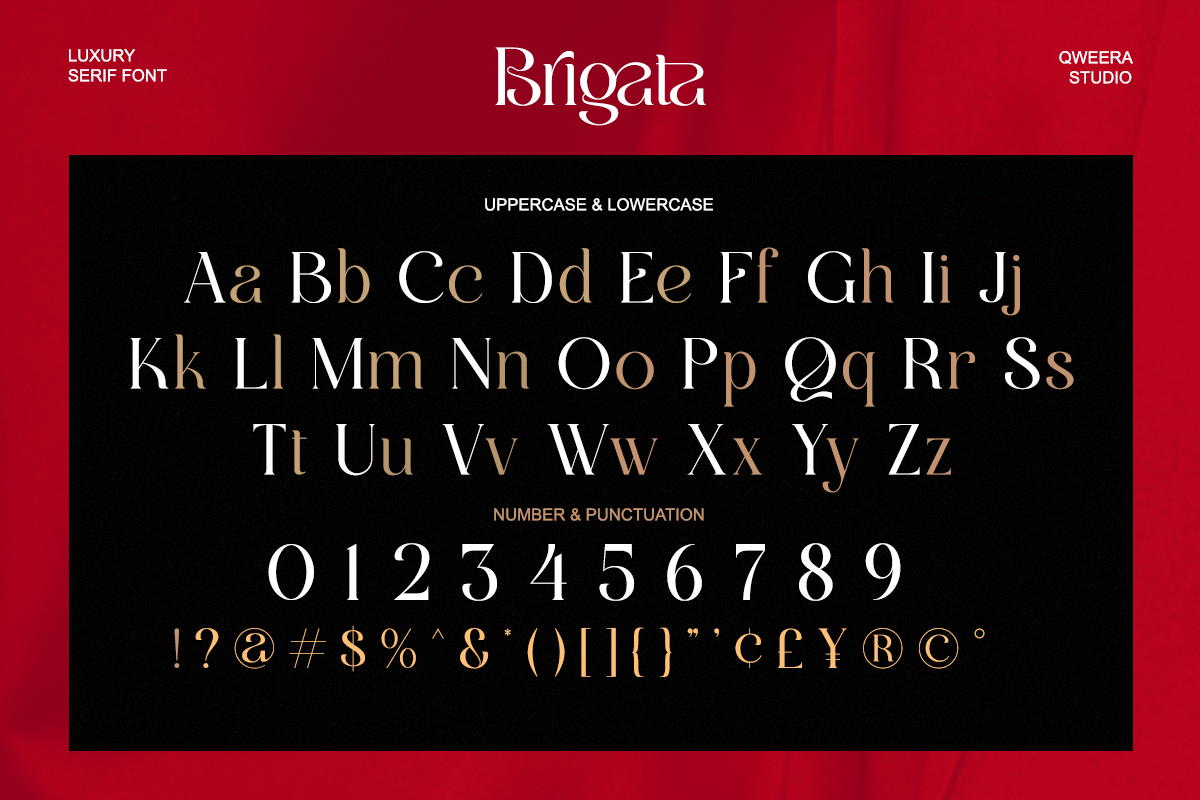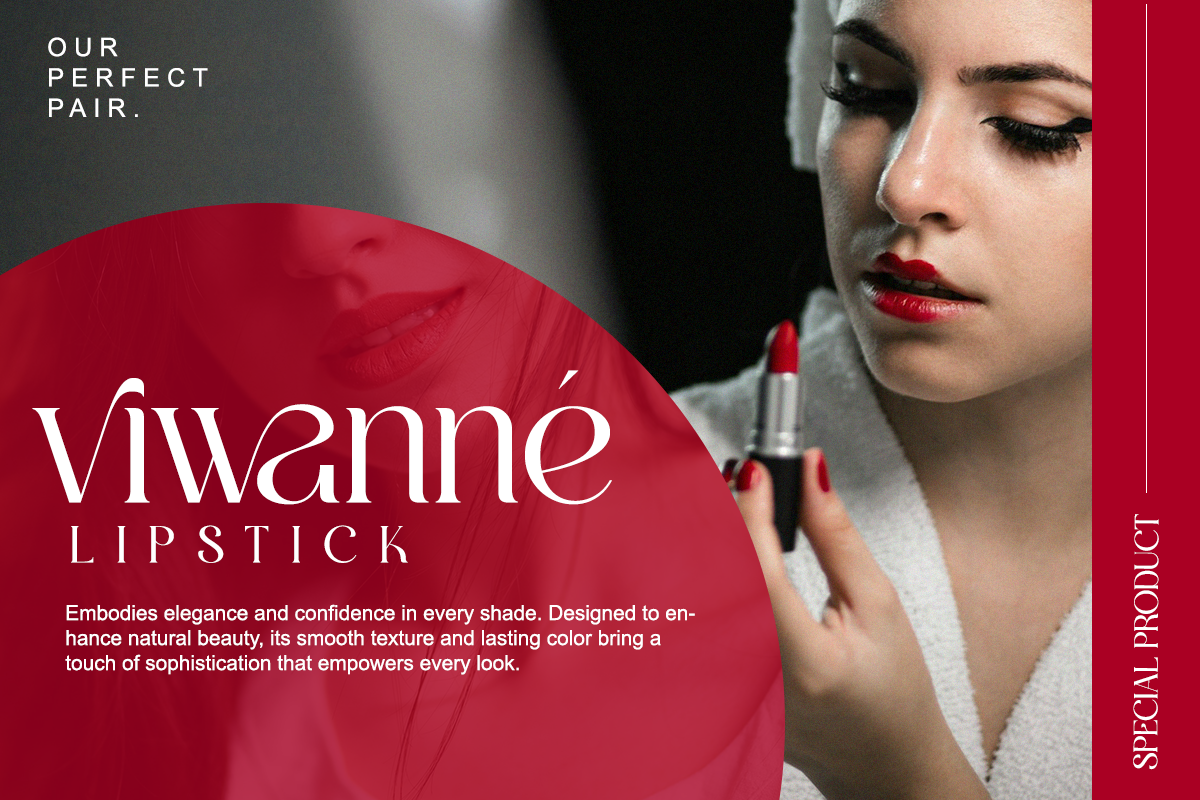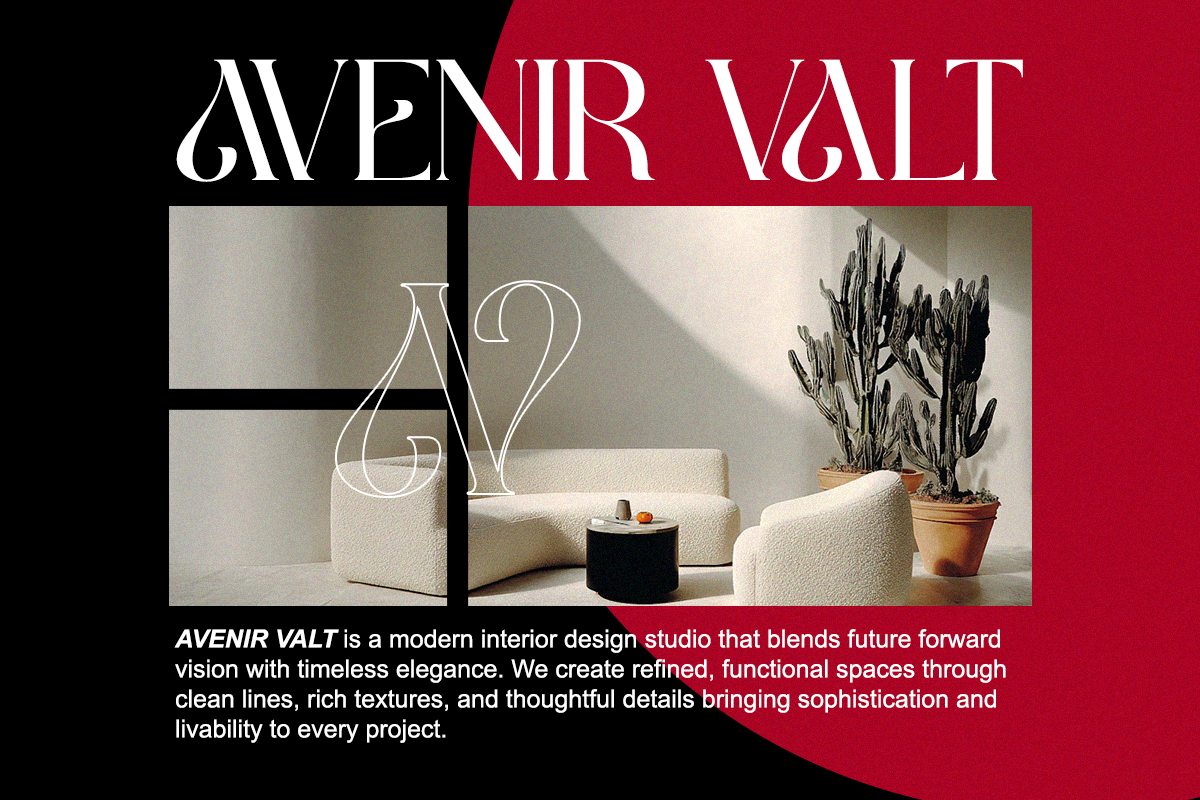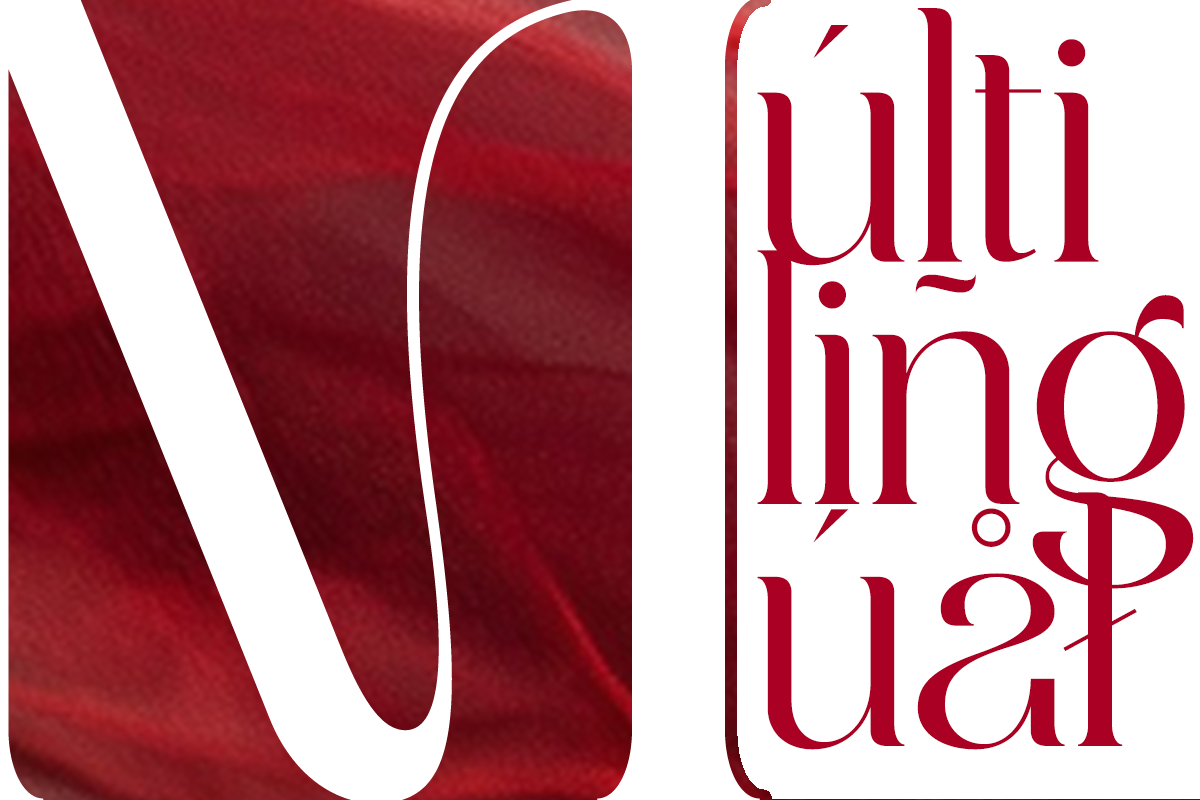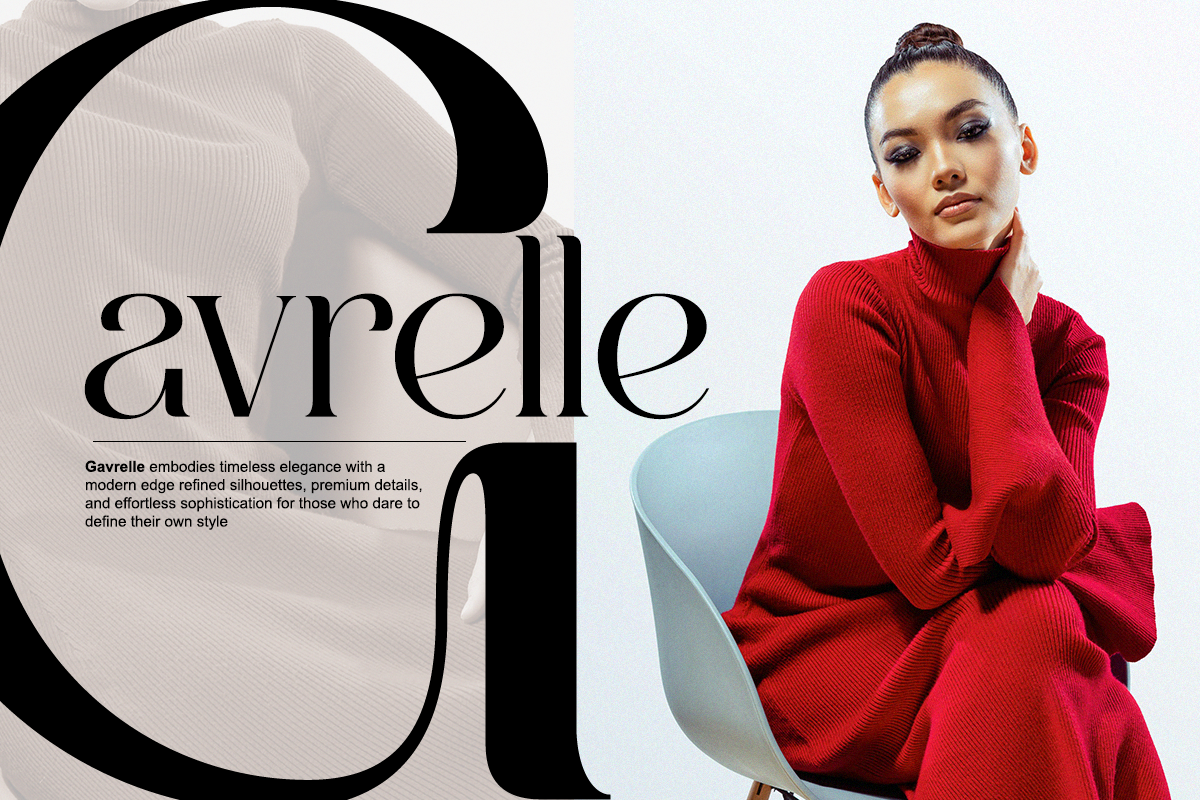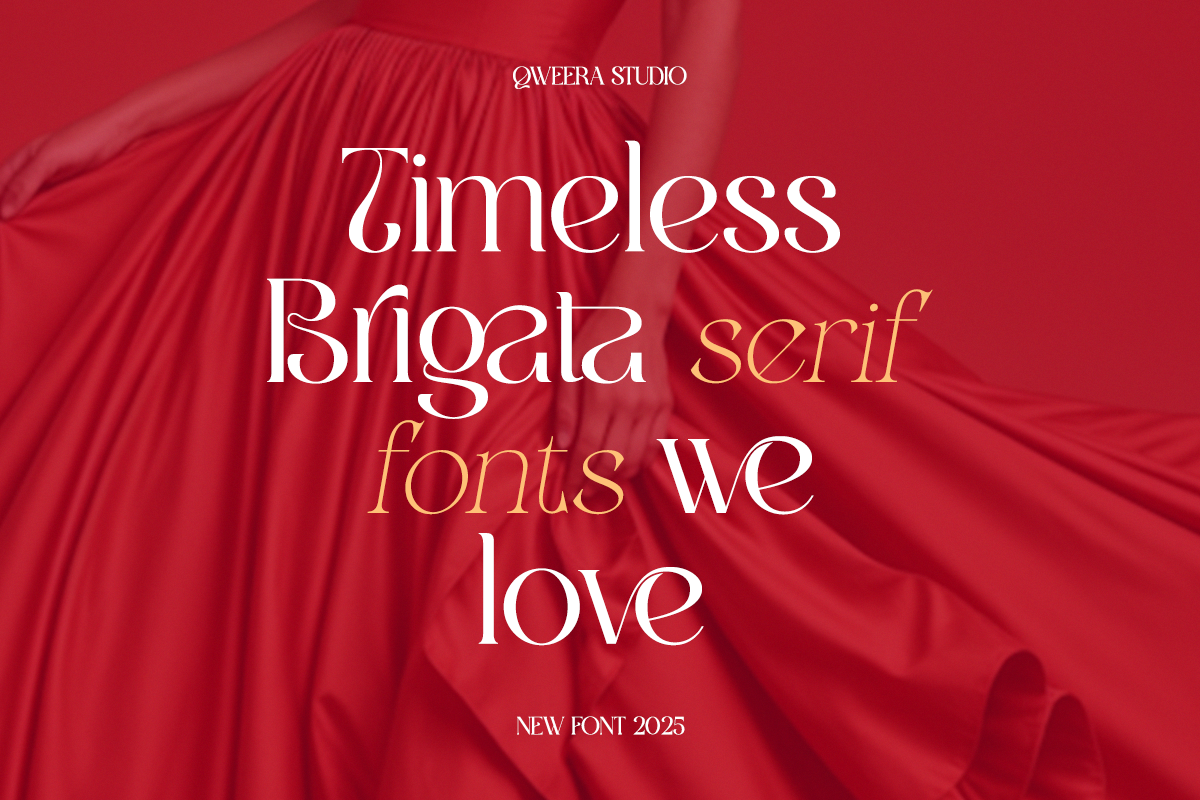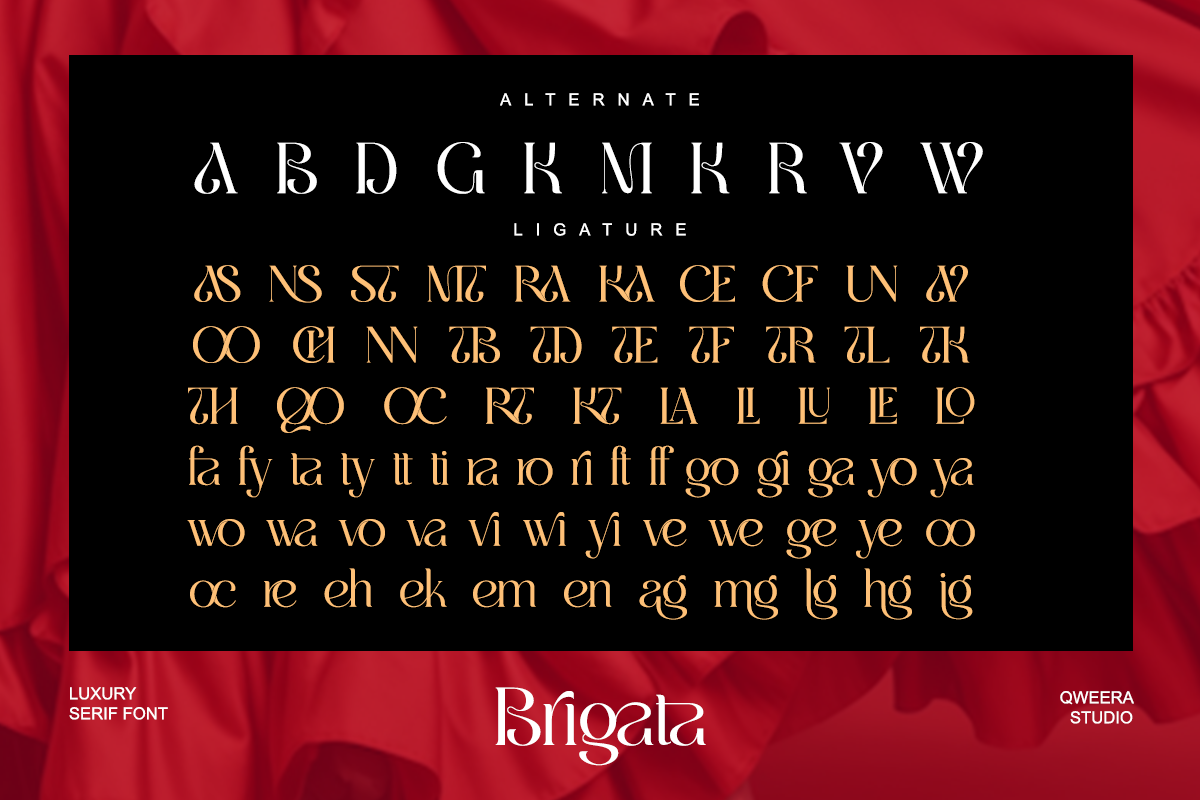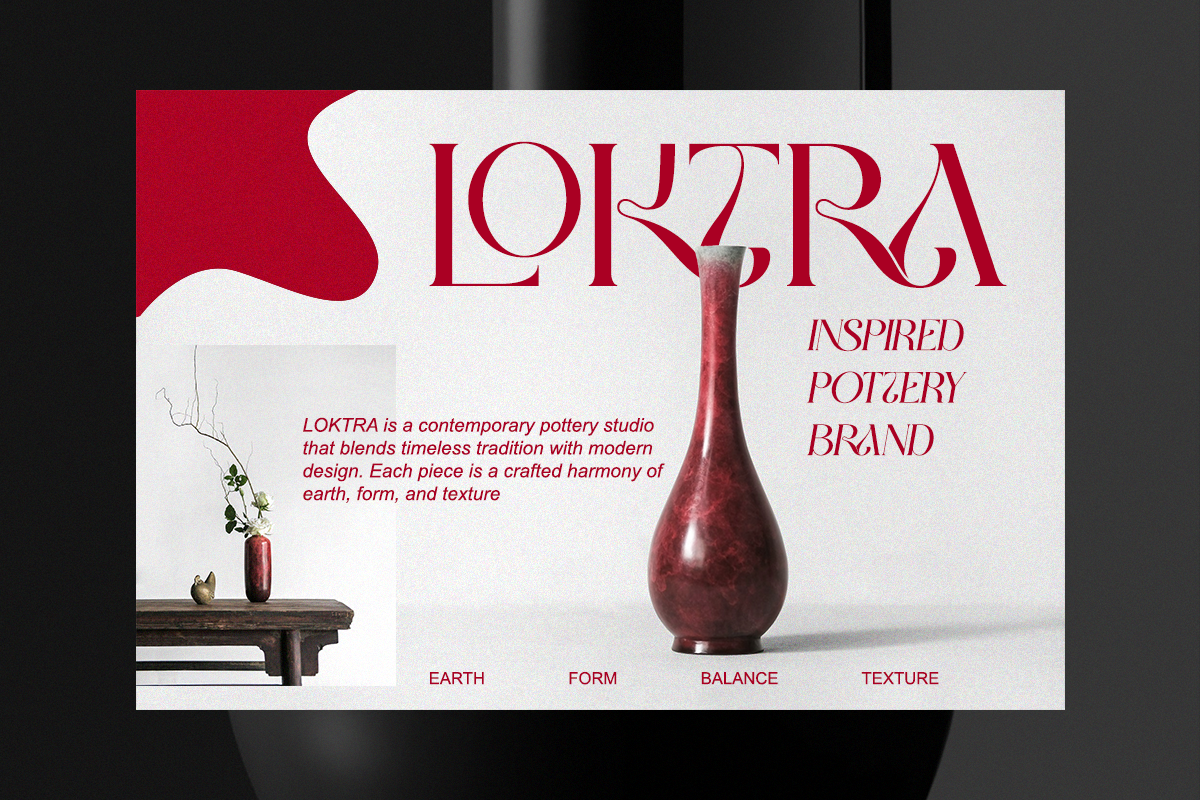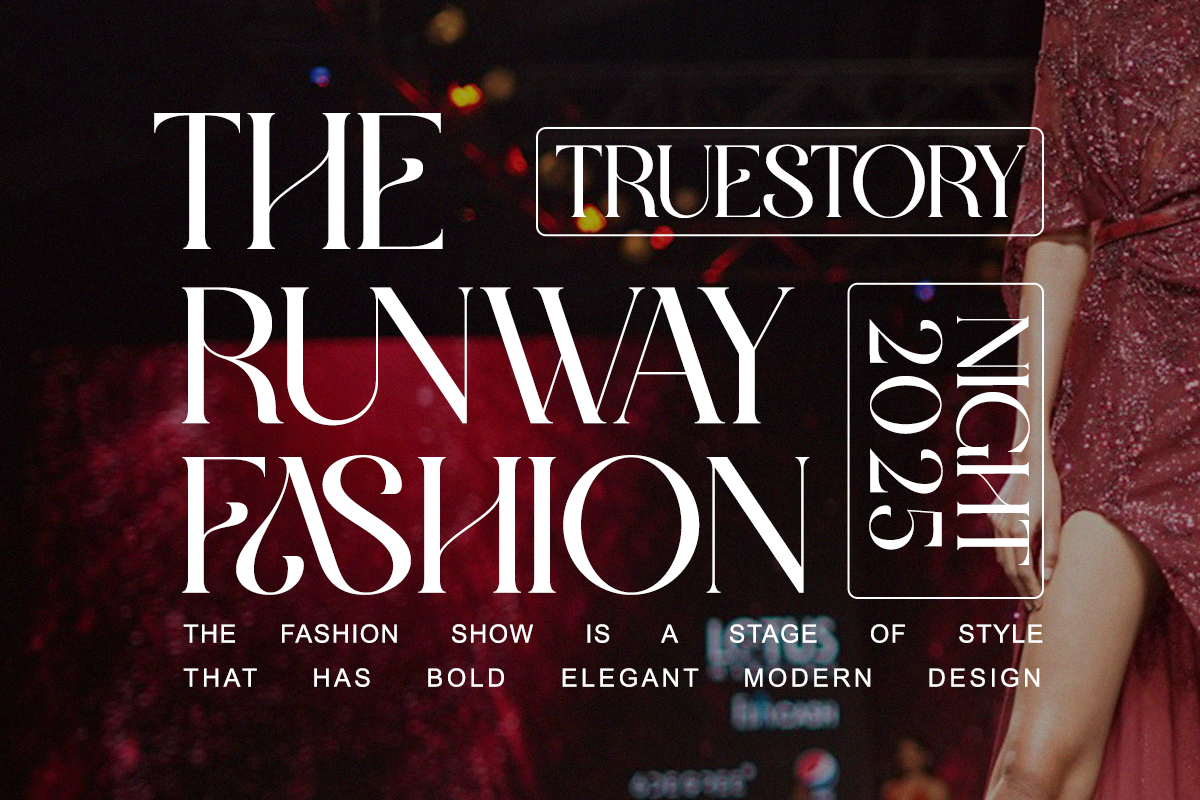
Brigata - Modern Luxury Branding
Say hello to Brigata, a modern luxury serif designed to bring confidence and sophistication to your branding. With its soft curves, refined contrast, and thoughtful ligatures, Brigata creates a premium editorial impression that feels stylish and timeless. Use it for fashion branding, magazine layouts, wedding titles, logo packs, or chic social media aesthetics. Every letter is carefully crafted to express elegance with a modern edge. Font Features - Regular & Italic - Uppercase & lowercase - Alternates & ligatures - High contrast strokes - PUA encoded - Multilingual support Perfect For Boutique logos, luxury branding, wedding stationery, beauty products, editorial headers, packaging, social media visuals, and lifestyle design.